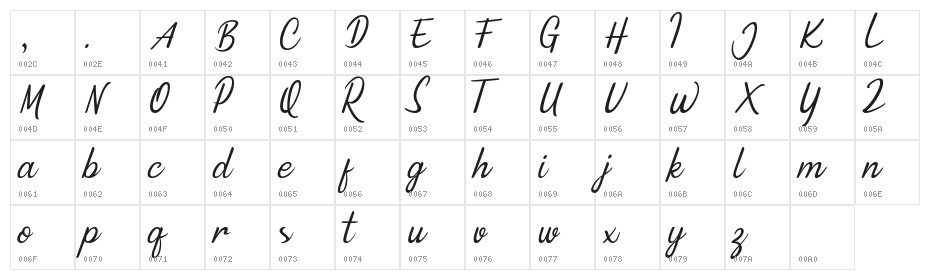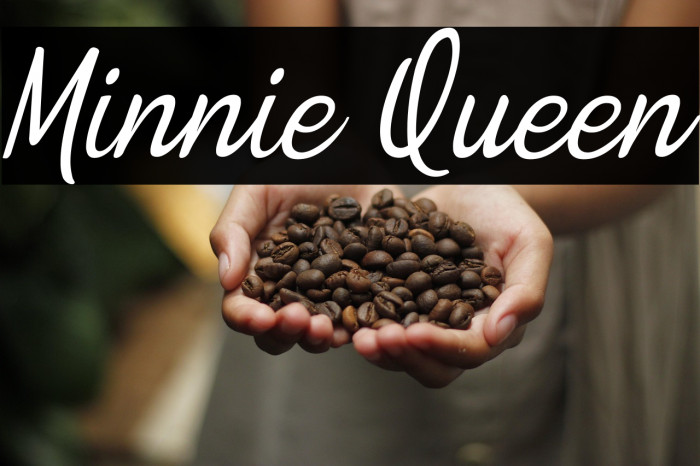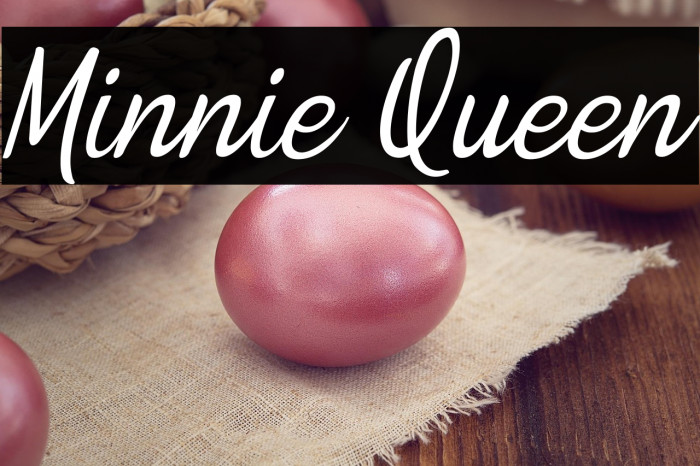
Minnie Queen Font
Minnie Queen Description
This font features a lively and flowing script style, characterized by its elegant and cursive letterforms. The uppercase letters are slightly slanted, adding a dynamic feel, while the lowercase letters maintain a consistent flow with smooth curves and loops. The strokes are moderately thick, providing a balanced contrast that enhances readability without sacrificing the decorative appeal. The overall design exudes a sense of sophistication and grace, making it suitable for projects that require a touch of elegance and personality.
Overall StyleElegant, Decorative
Use CaseLogos, Invitations, Decorative Text
Proposed ProjectsIdeal for wedding invitations, greeting cards, branding, and logo design where a personal and elegant touch is desired.